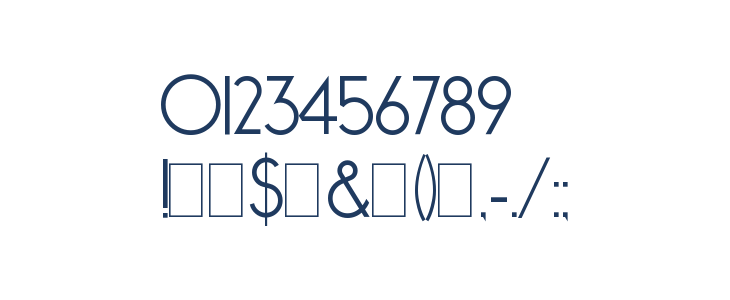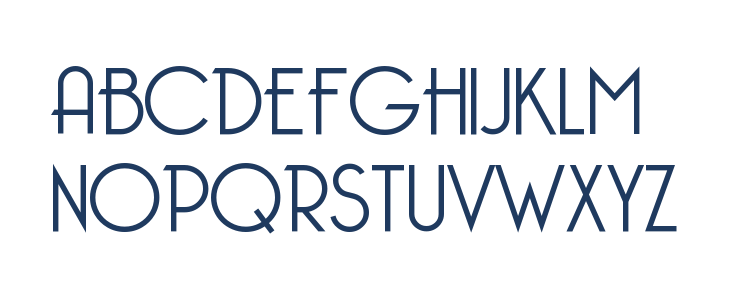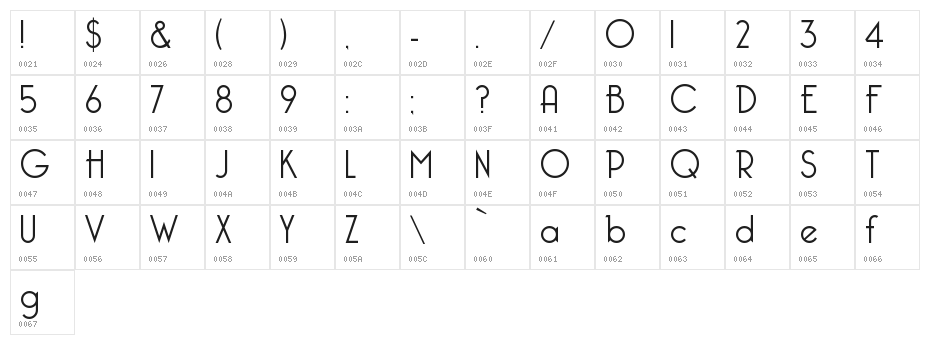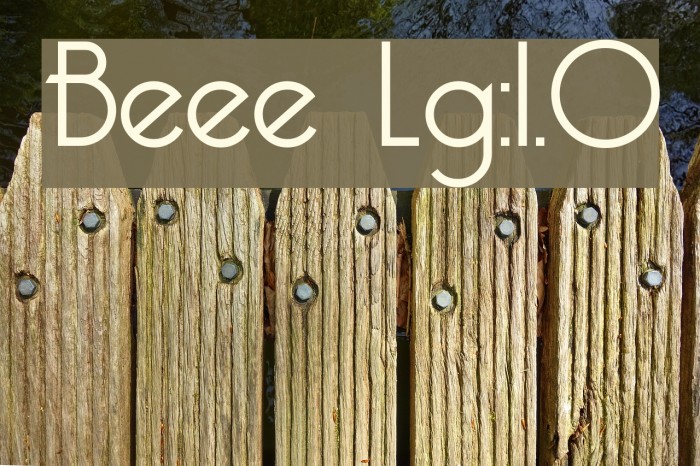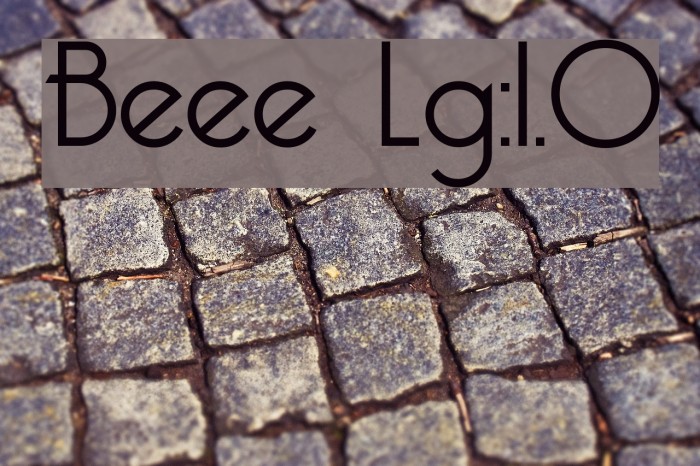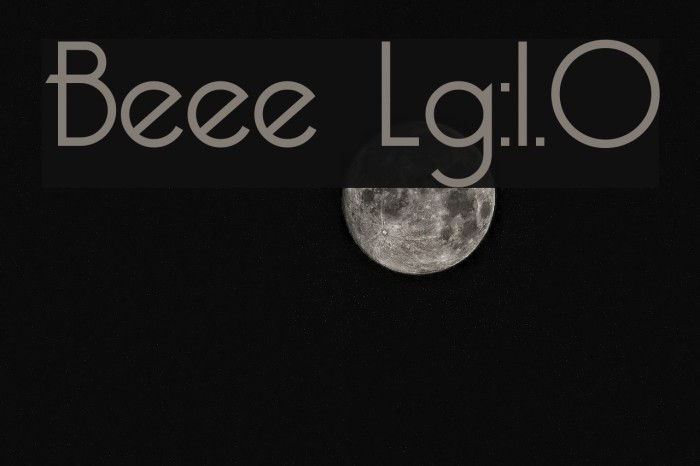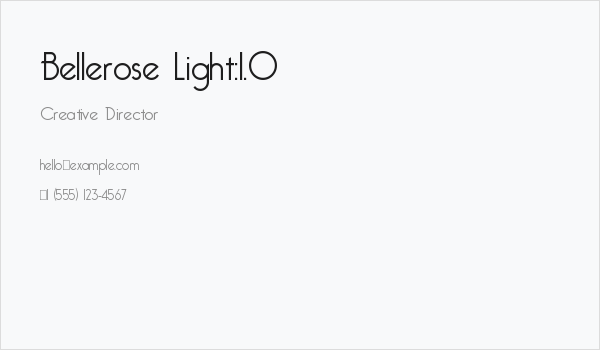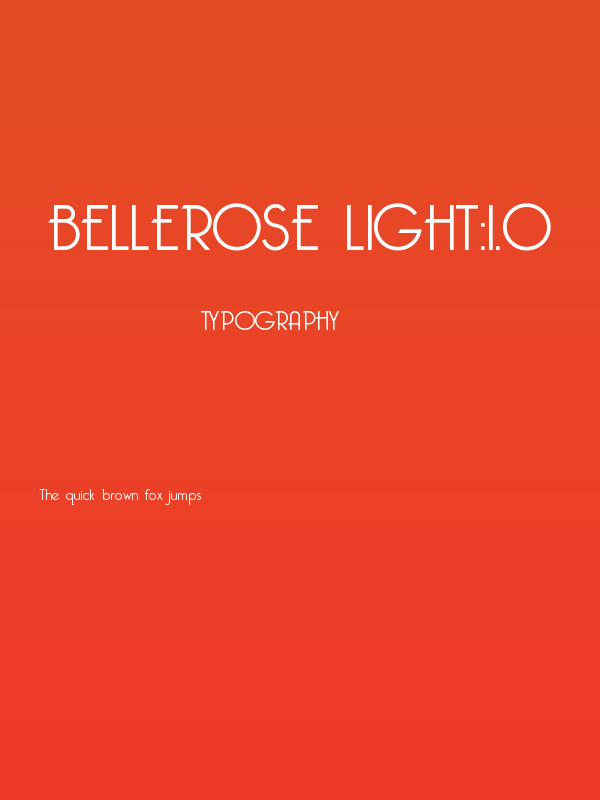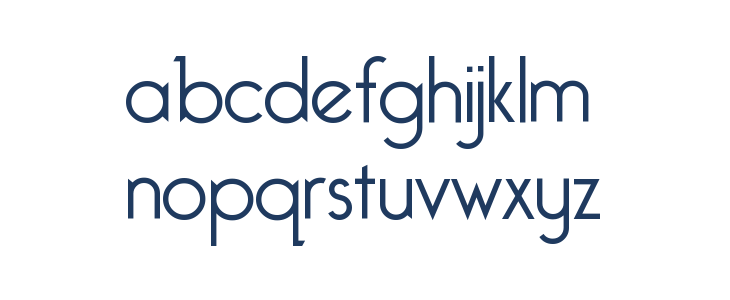
Bellerose Light:1.0 Font
Bellerose Light:1.0 Description
This font exhibits a sleek and modern sans-serif style, characterized by its clean lines and geometric shapes. The uppercase letters are bold and striking, with a uniform stroke width that conveys a sense of stability and professionalism. The lowercase letters maintain a consistent style, offering a harmonious balance between the characters. The numerals are clear and easy to read, making them suitable for various applications. Special characters are well-defined, ensuring versatility in design projects. Overall, the font's simplicity and elegance make it a versatile choice for contemporary design needs.